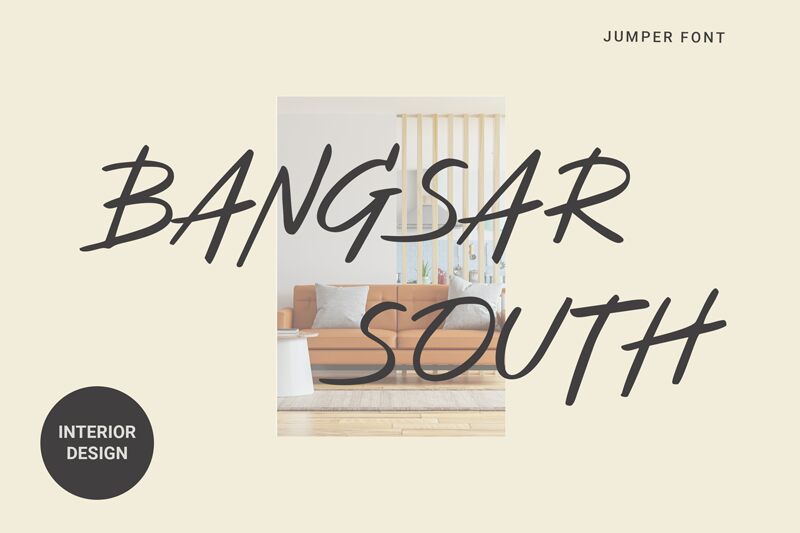
Jumper font by Tigadestd exudes a dynamic handwritten style, capturing a sense of spontaneity and personal touch. This vibrant font showcases an expanded flair, bringing an air of authenticity and simplicity to any project. With its free-flowing strokes and distinct character, Jumper's aesthetic appeal lies in its ability to convey warmth and creativity.
Ideal for various design contexts such as logos, invitations, or social media graphics, this font effortlessly blends casual elegance with genuine expression. Designers seeking a free font download will find Jumper adds a unique personality to both digital and print projects.
Embrace the opportunity to enhance your designs with this captivating typeface that stands out while maintaining readability.